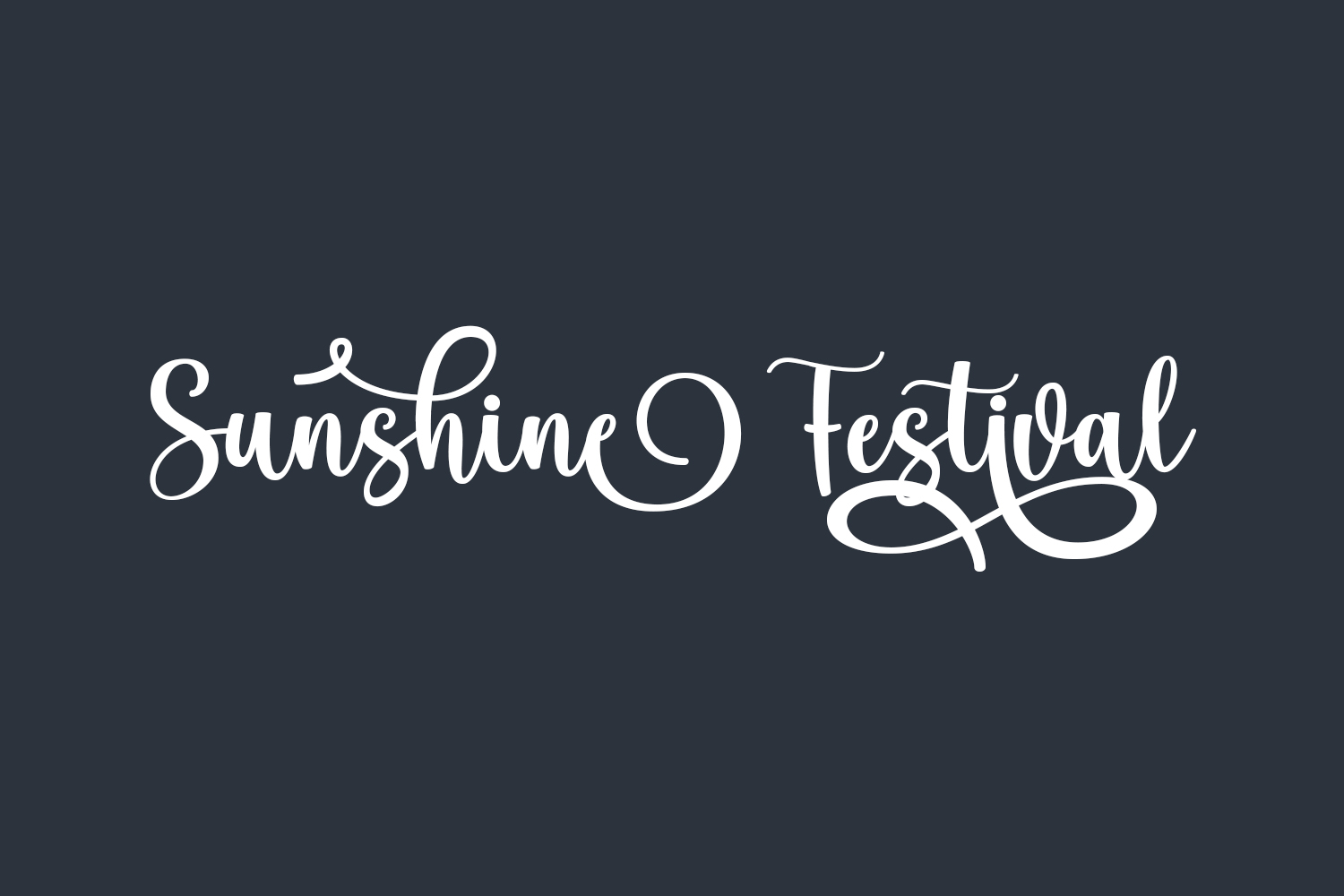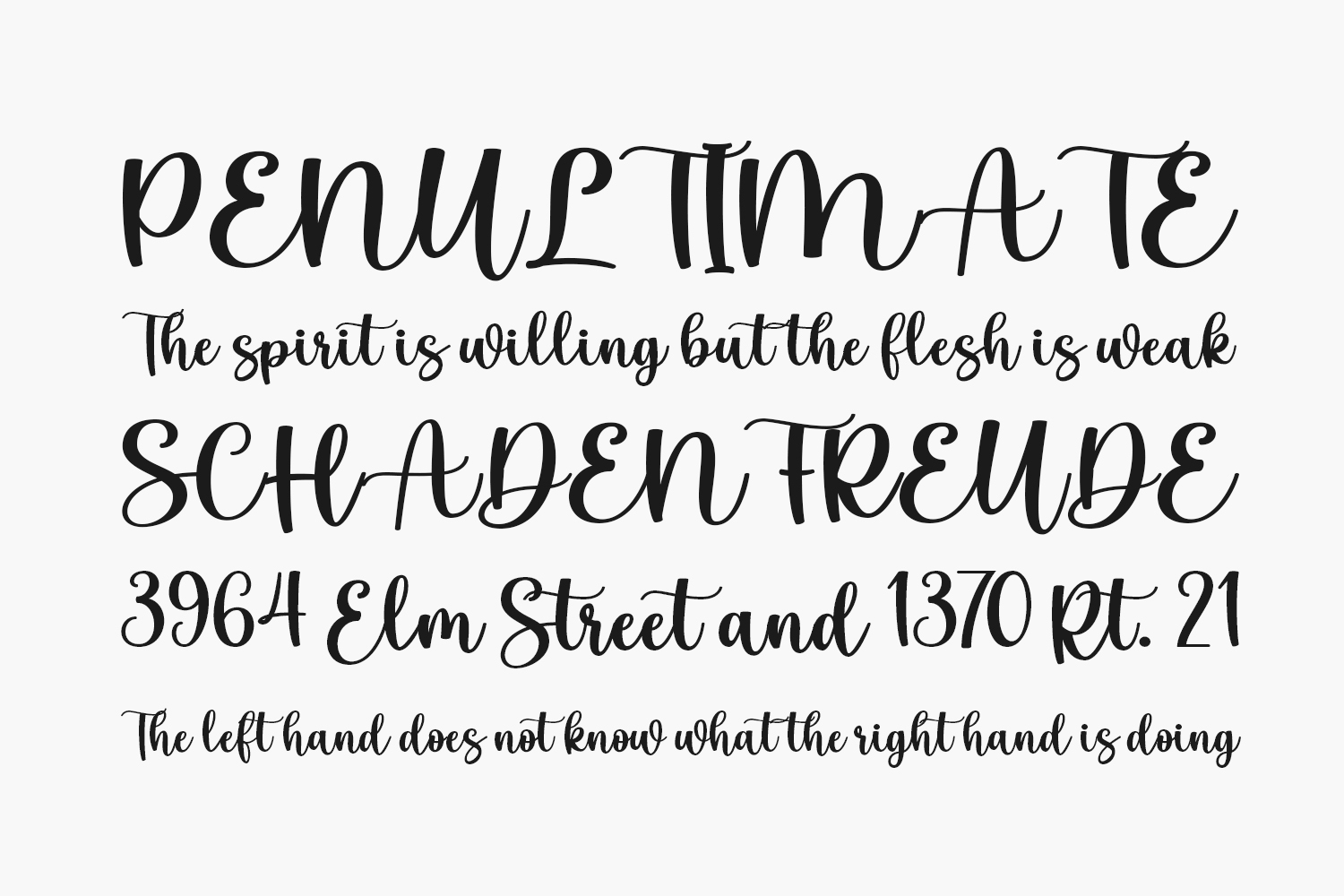
Sunshine Festival Free Font exudes beauty and romance through its captivating script style. Perfect for wedding invitations, thank-you cards, quotes, greetings, logos, business cards, and more, it adds a charming handwritten flourish to any design. Download the font for free if you need it for personal use or purchase the full version for commercial use.